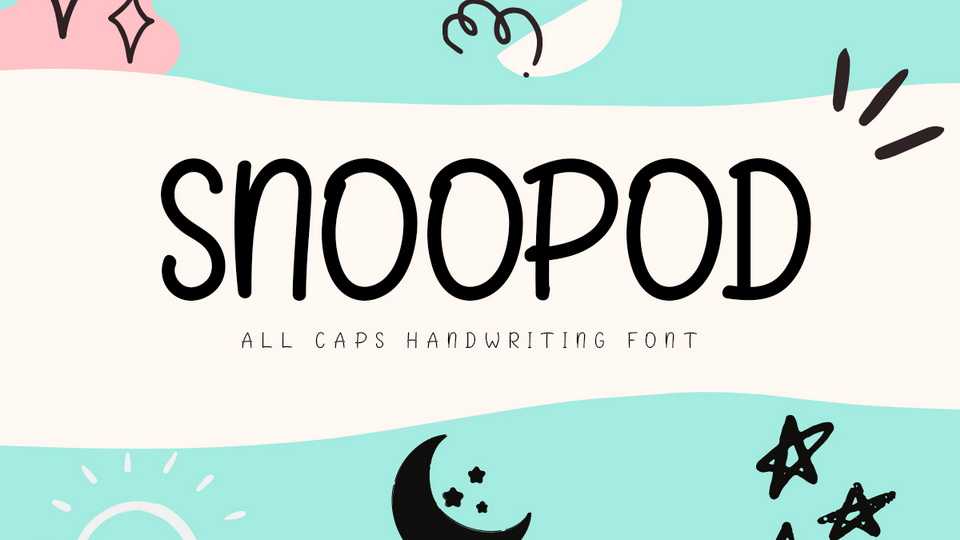
Download Snoopod font, a cute and simple lettered handwritten typeface that can be used for all ink quotes or teaching material! Its authentic look will add a personal and realistic feel to your designs.